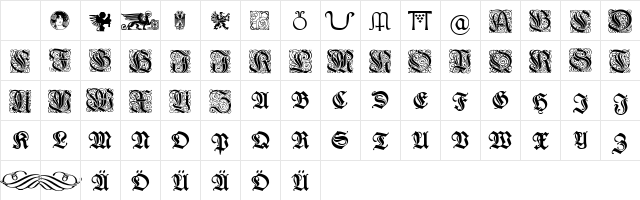
WieynkFrakturInitialen draws on the rich tradition of blackletter calligraphy, with dense, angular strokes that evoke medieval manuscripts and old-world craftsmanship.
Font Pairing: Pair with a clean neutral sans-serif for body copy to let WieynkFrakturInitialen's character lead without overwhelming the composition.
Pro Tip: Reserve WieynkFrakturInitialen for display and logo use - pair it with a clean sans-serif for body copy to prevent the composition from feeling oppressive.